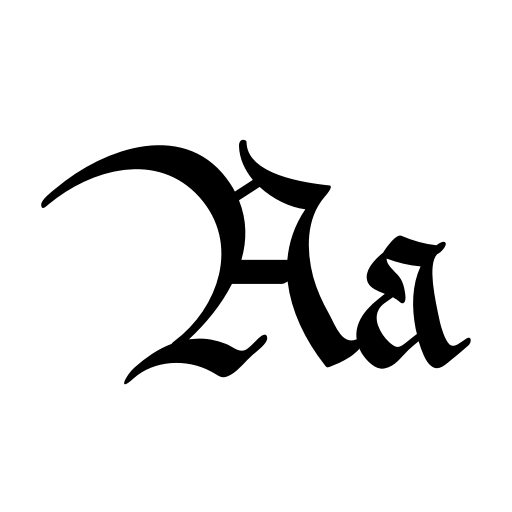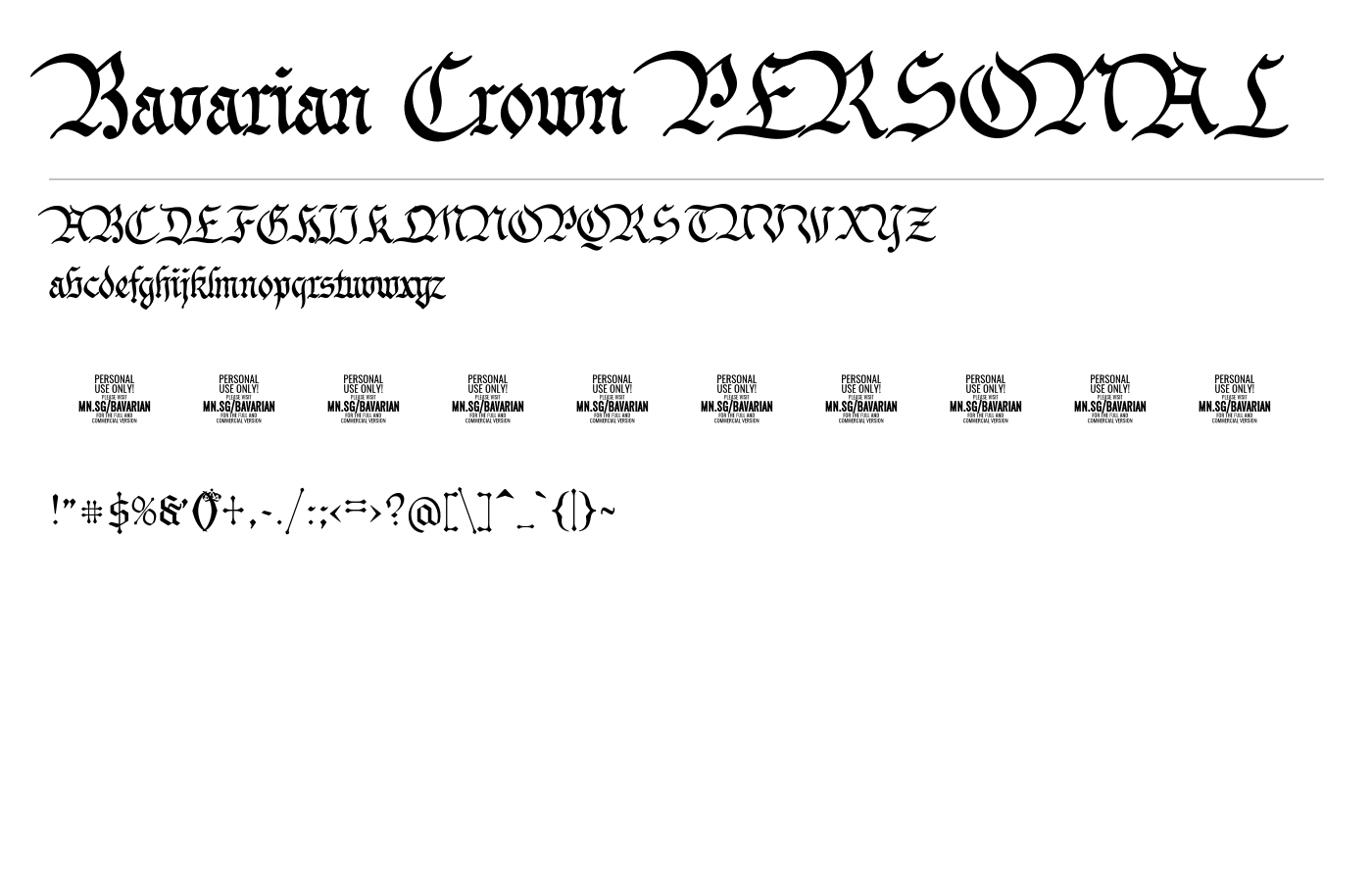
Bavarian Crown PERSONAL is a distinctive blackletter font with ornate, sharp strokes and intricate letterforms that evoke a traditional Gothic, medieval style. Its high contrast and decorative flair make it ideal for vintage or historical themed designs, logos, and headlines seeking an old-world, regal atmosphere. This font is best used in display settings where its elaborate details can be appreciated and add a dramatic, classical touch.
Bavarian Crown PERSONAL Font
About Bavarian Crown PERSONAL Font